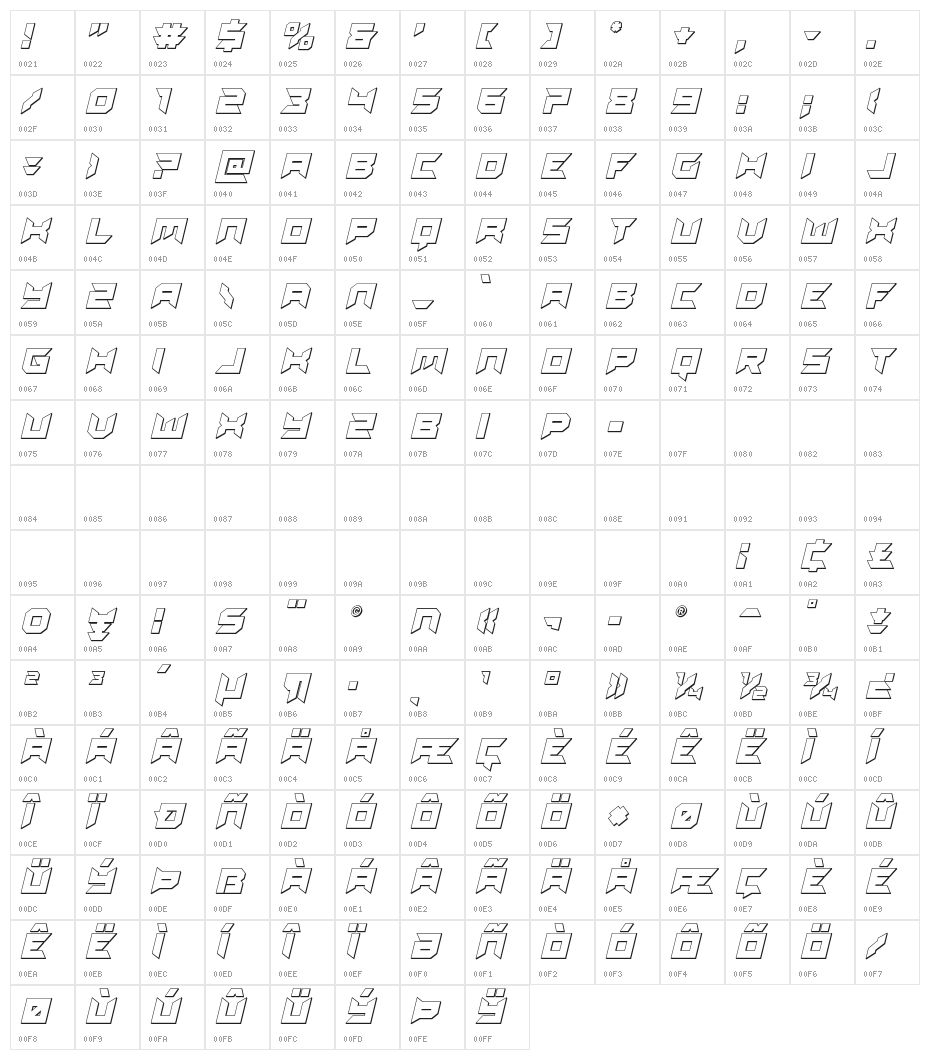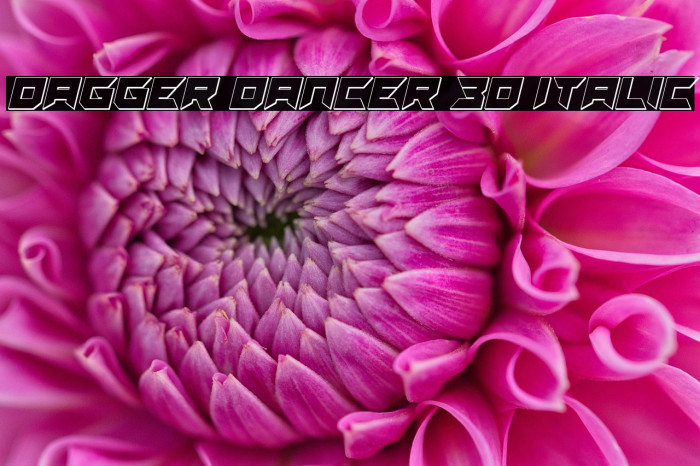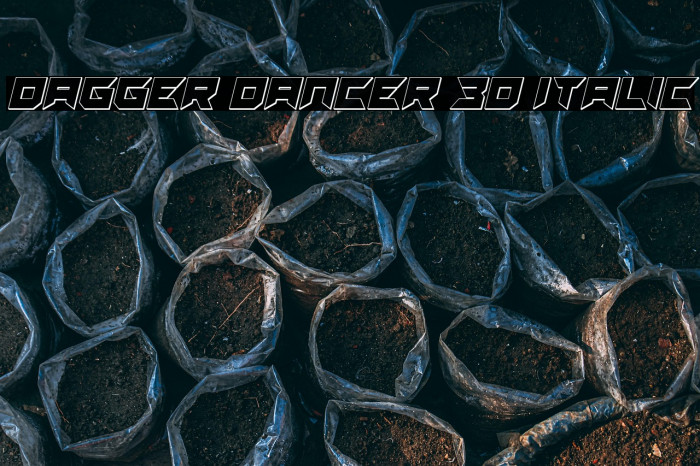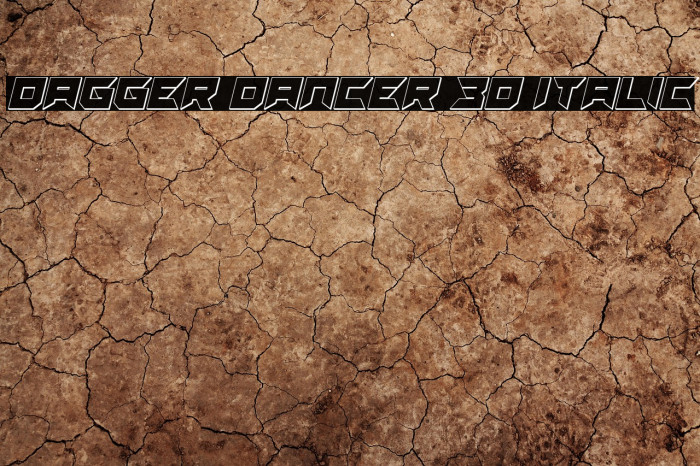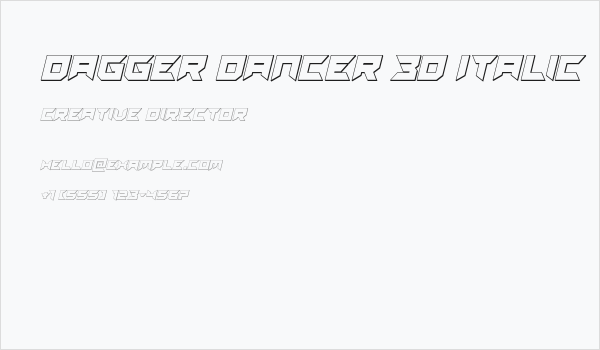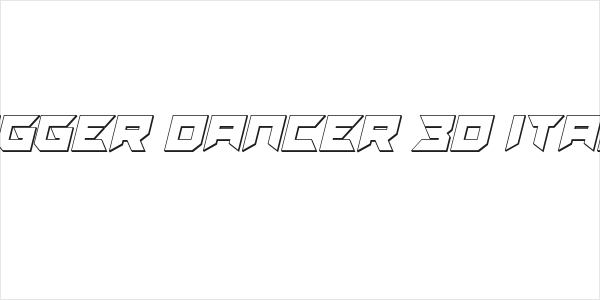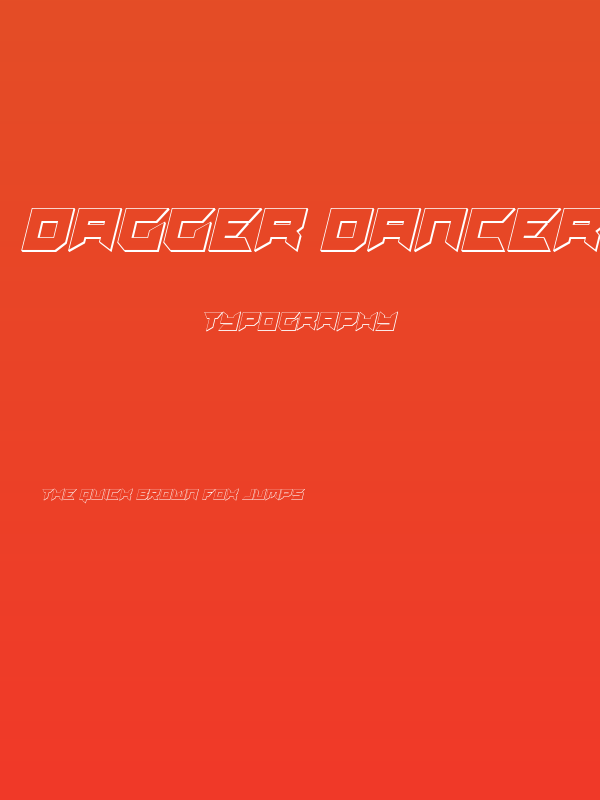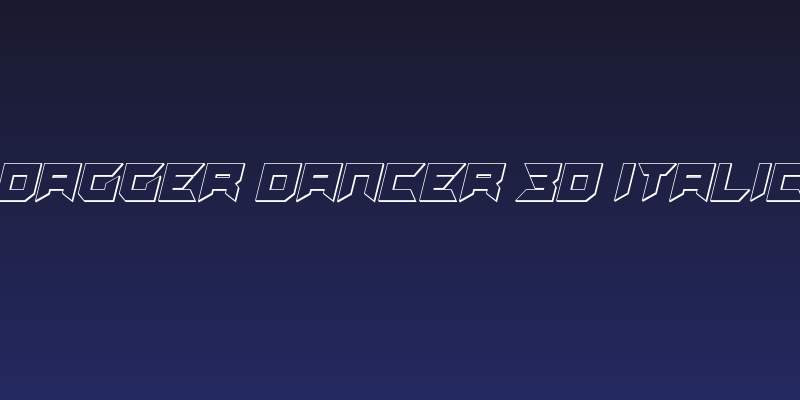
Dagger Dancer 3D Italic Font
Dagger Dancer 3D Italic Description
This font features a bold, angular design with a 3D effect that gives each character a dynamic and futuristic appearance. The letters are sharply defined with a consistent stroke width, creating a sense of movement and energy. The italic slant adds to the sense of speed and modernity, making it ideal for projects that require a strong visual impact. The characters are well-spaced, ensuring readability while maintaining a cohesive look. The numbers and special characters follow the same stylistic cues, providing a uniform appearance across all elements.
| Proposed Projects | Ideal for video game titles, sci-fi movie posters, tech branding, and sports team logos. |